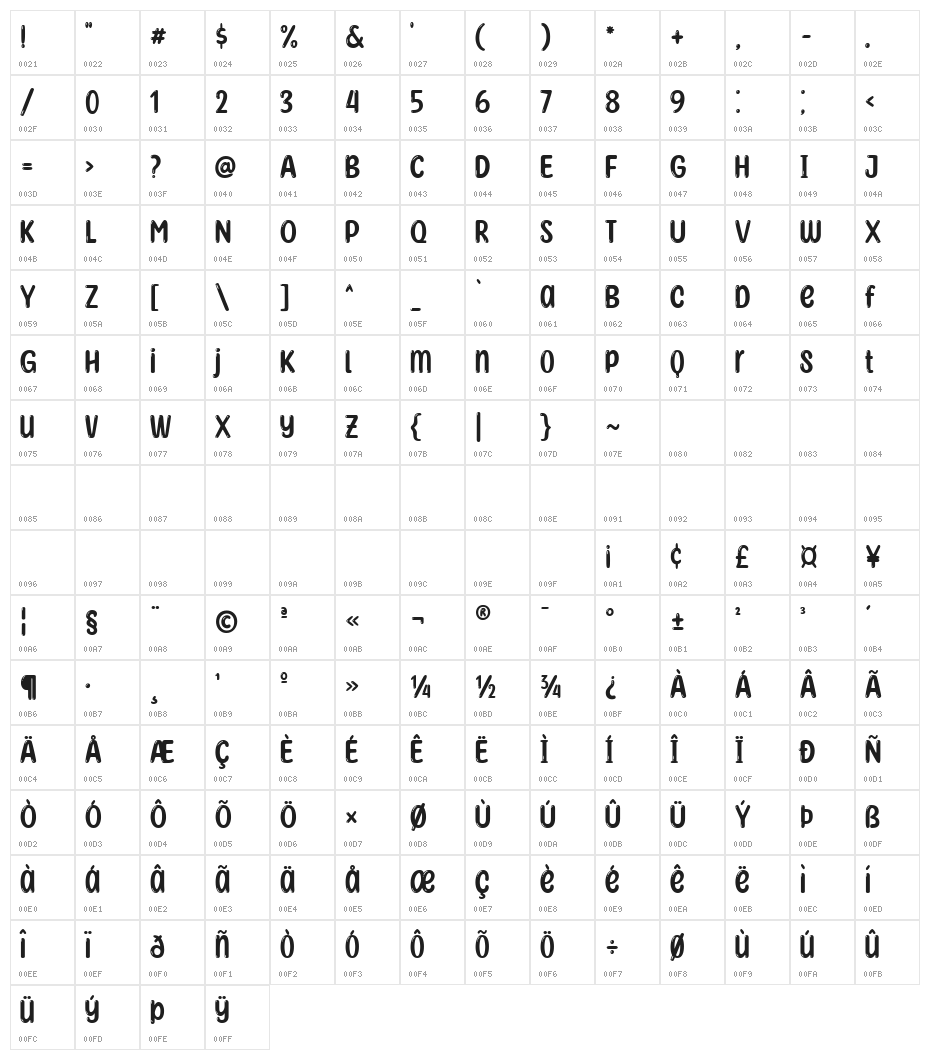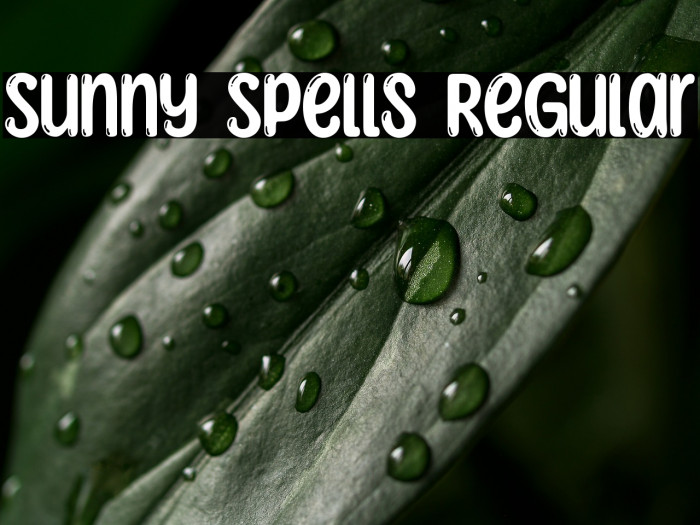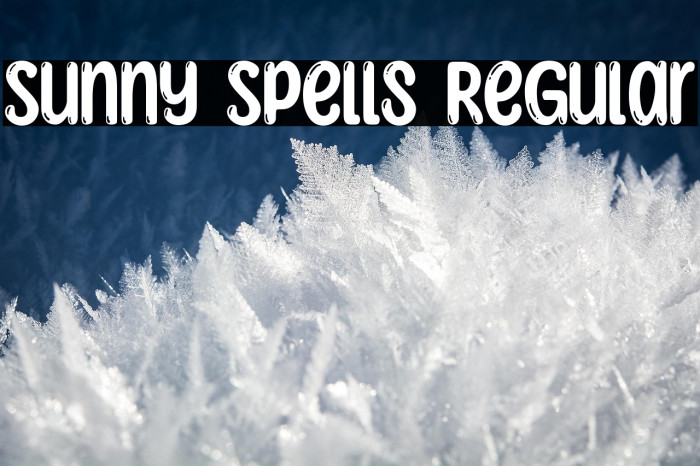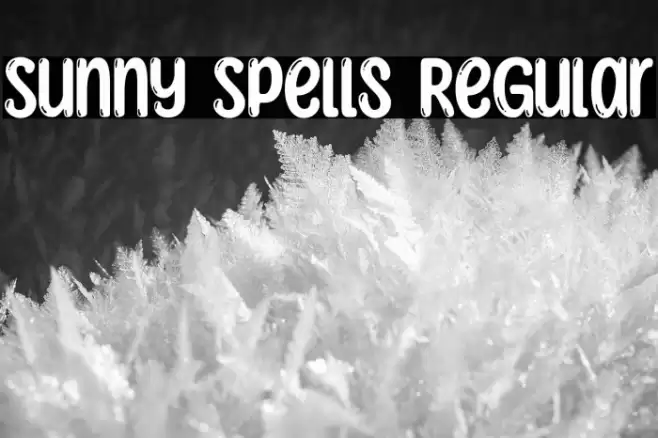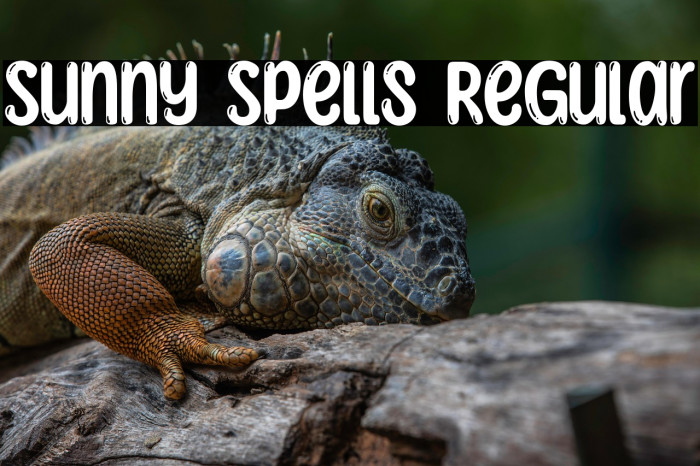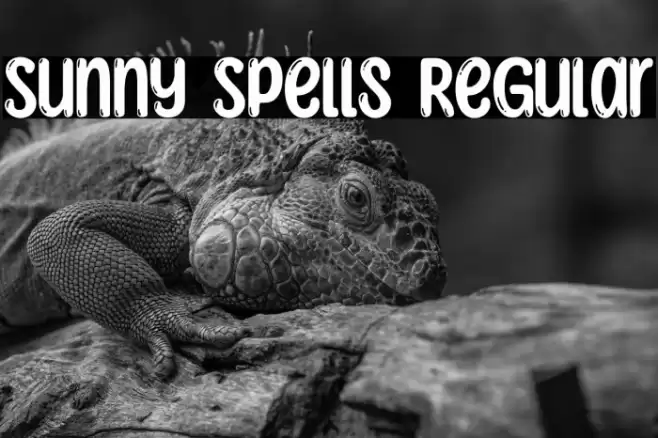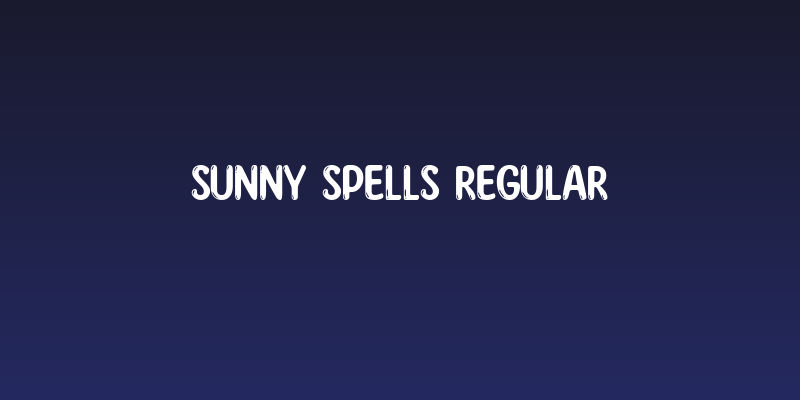
Sunny Spells Regular Font
Sunny Spells Regular Description
This playful and bold font features rounded edges and a bubbly appearance, giving it a cheerful and friendly vibe. The characters are thick and slightly condensed, with a consistent stroke width that adds to its boldness. The font's unique style is characterized by its whimsical and fun design, making it ideal for creative and informal projects. The letters are well-spaced, ensuring readability while maintaining a lively and energetic look. Its distinct style is perfect for capturing attention and conveying a sense of joy and playfulness.